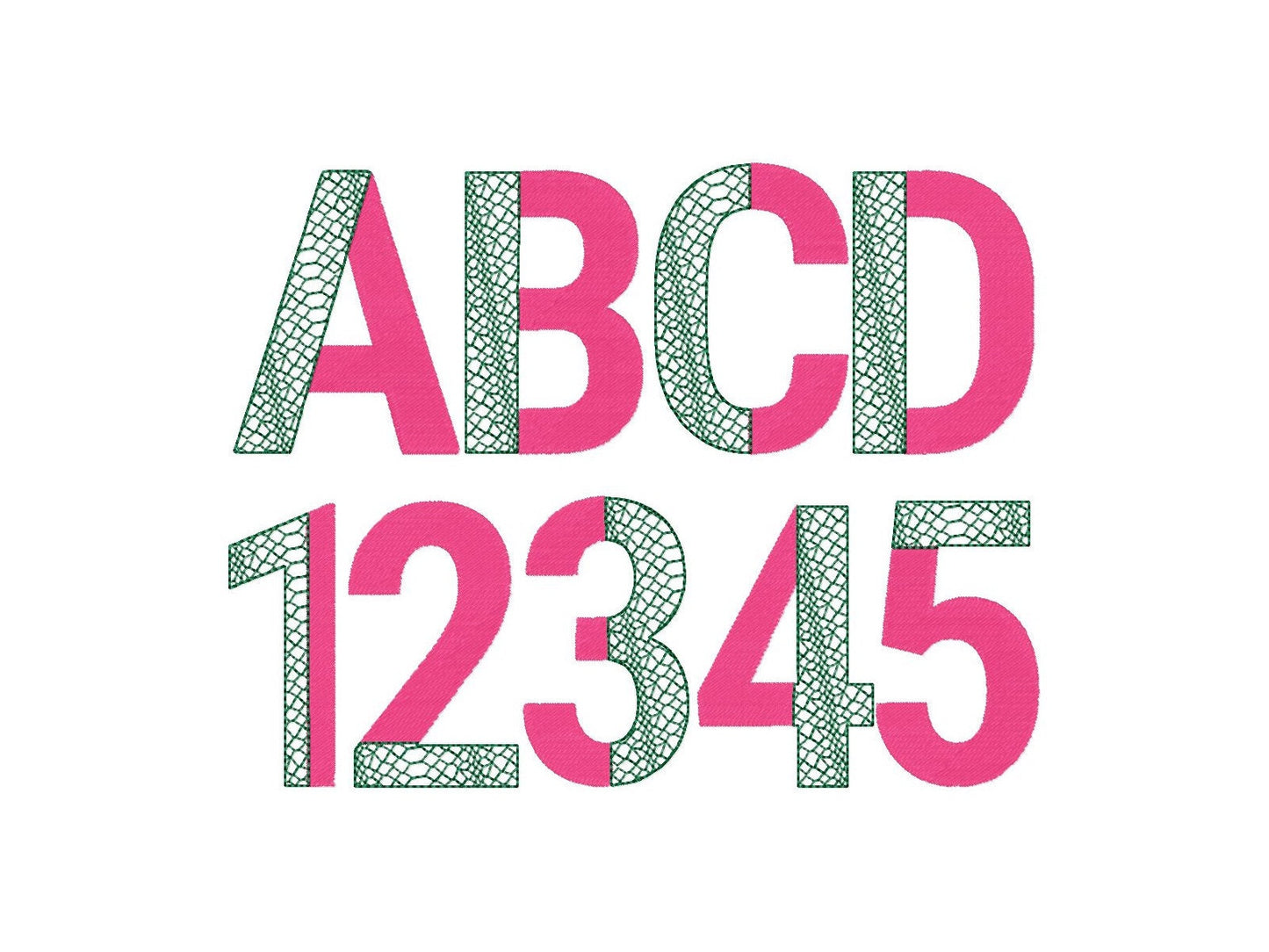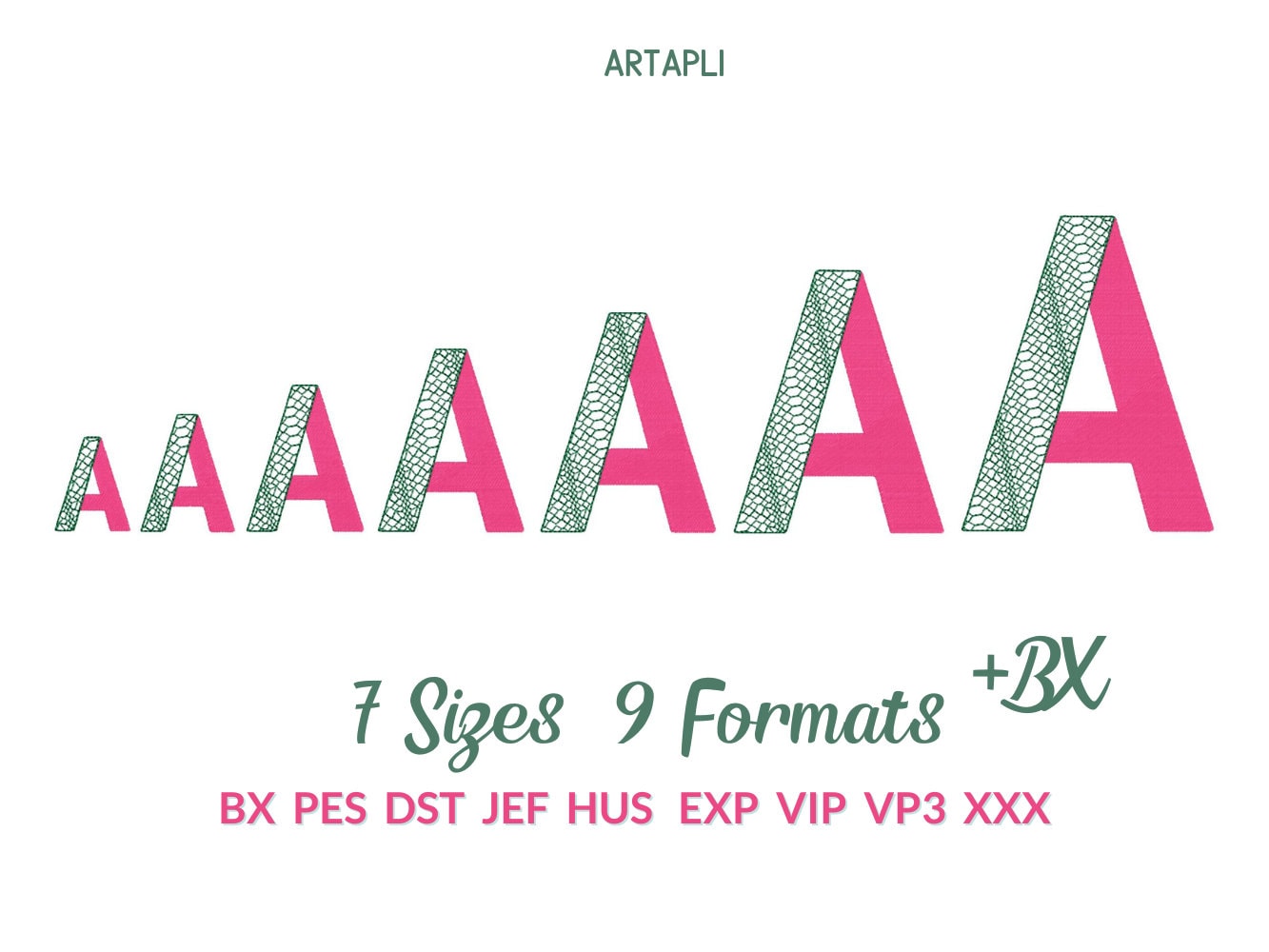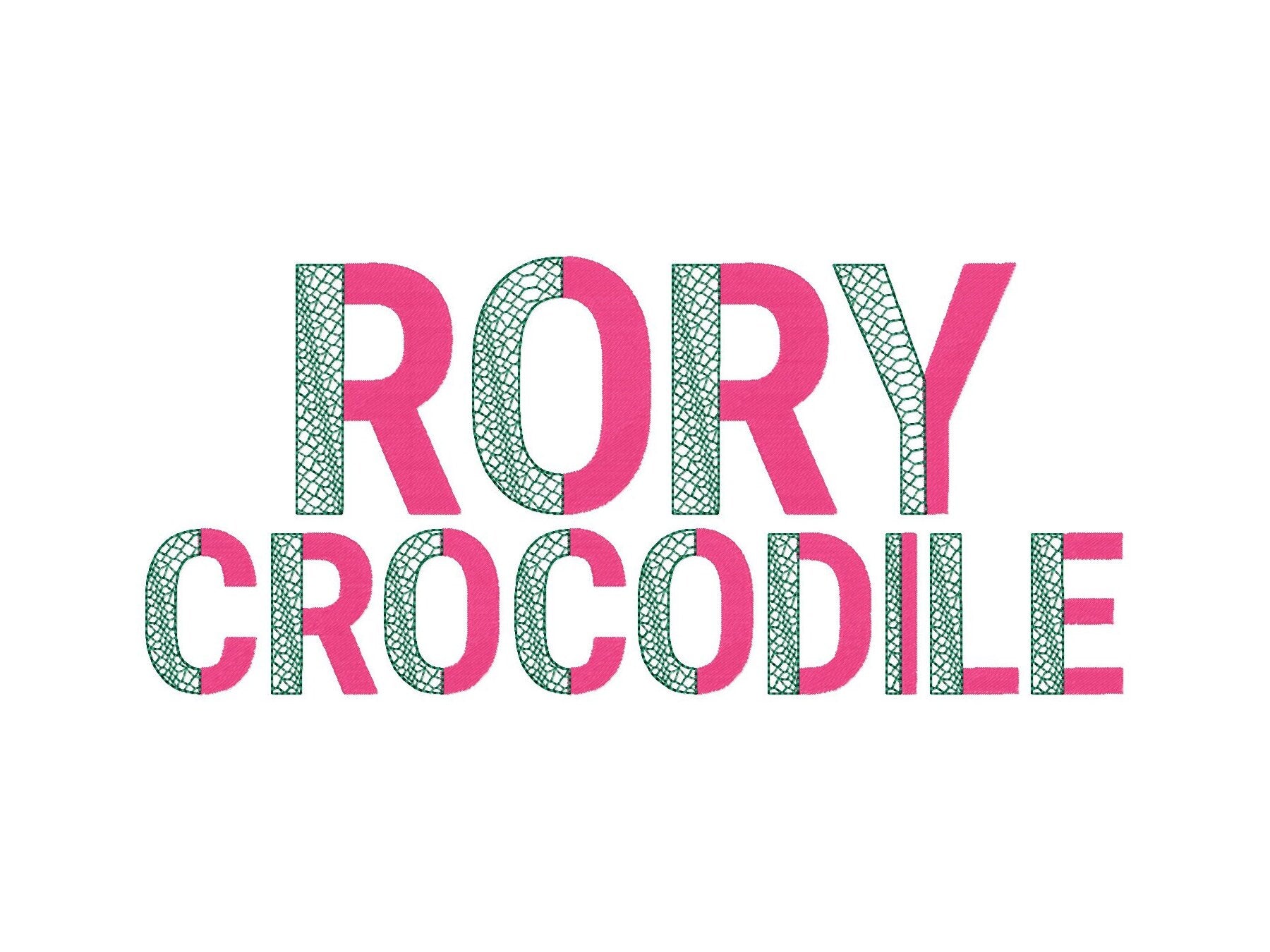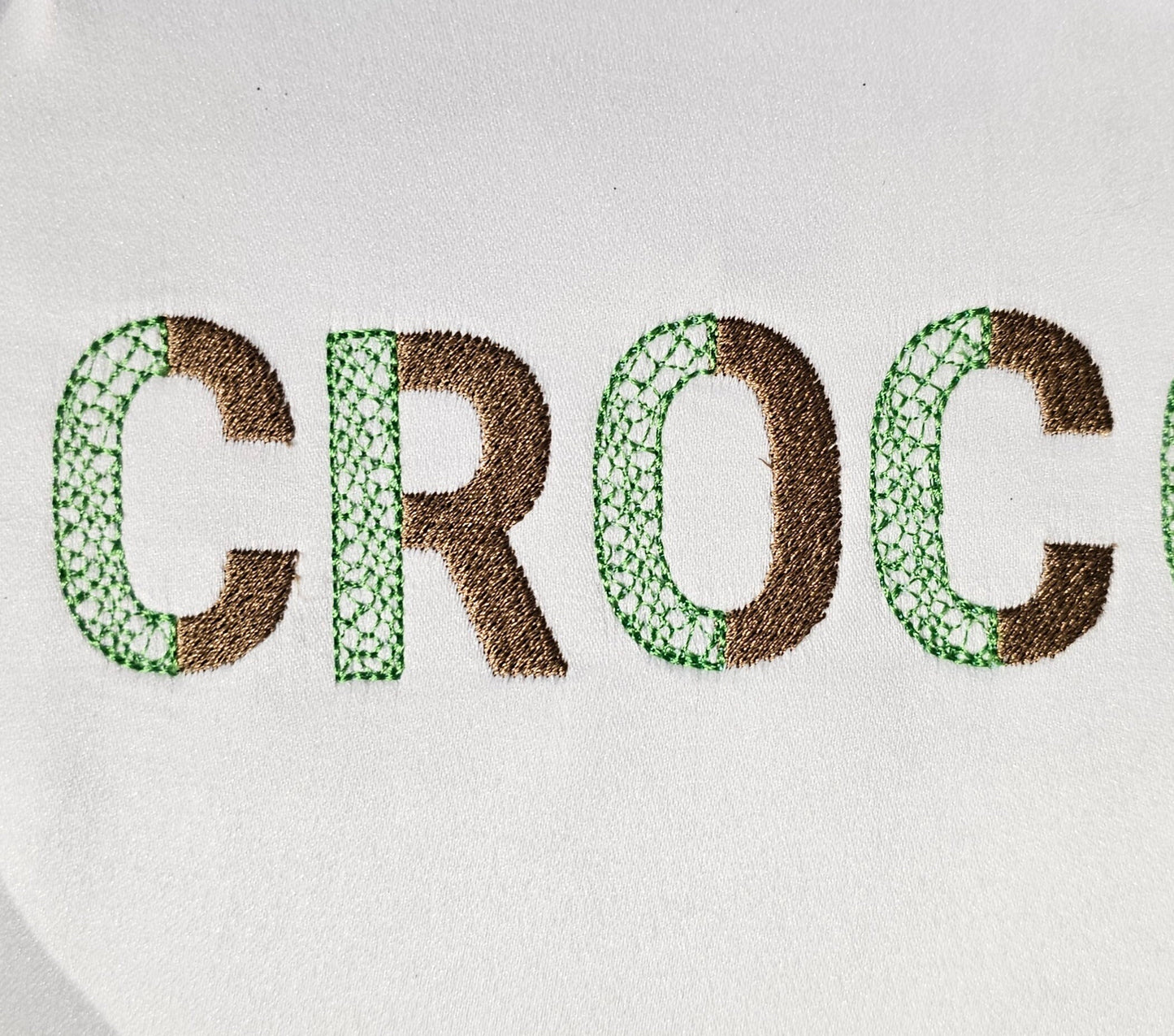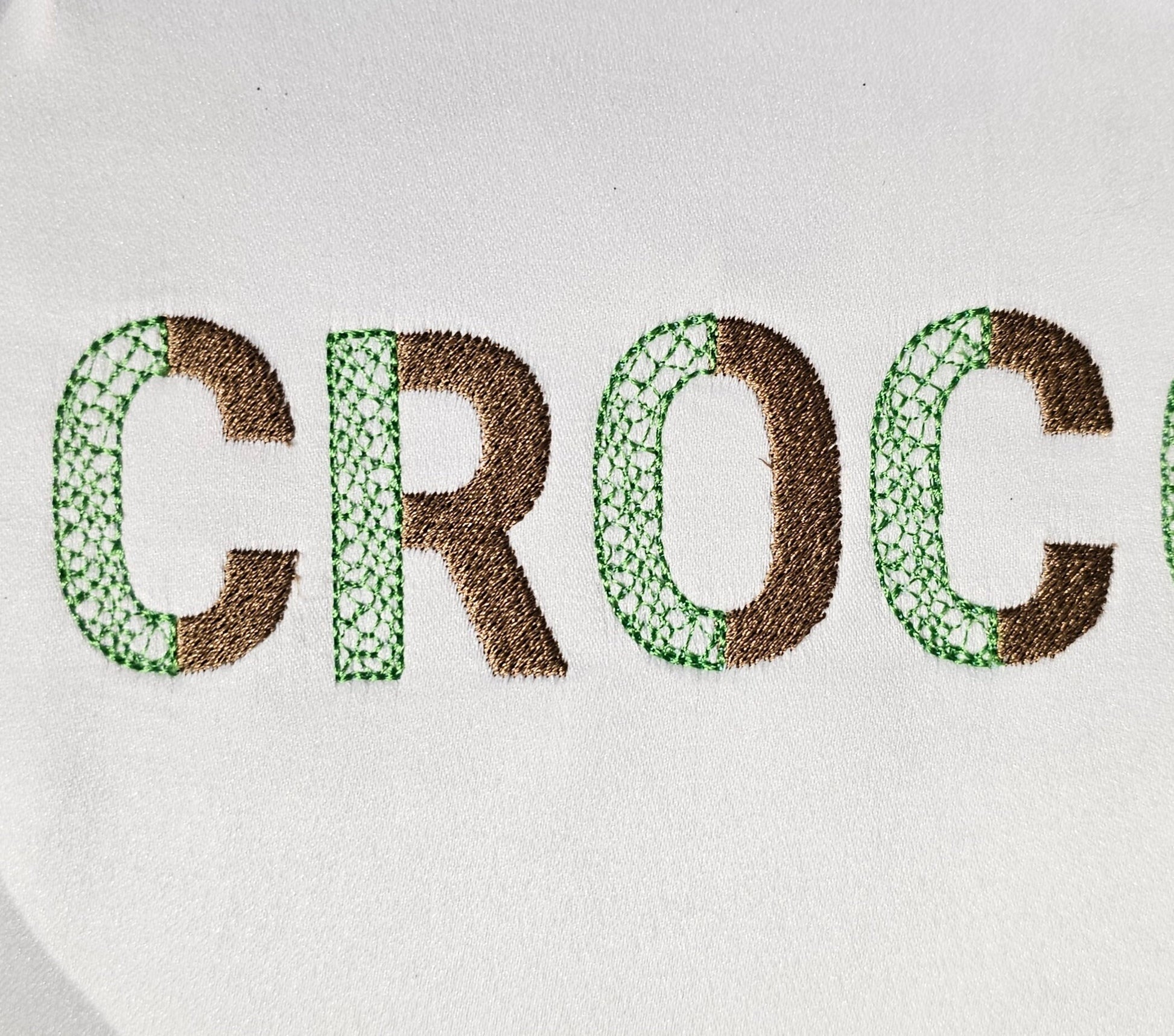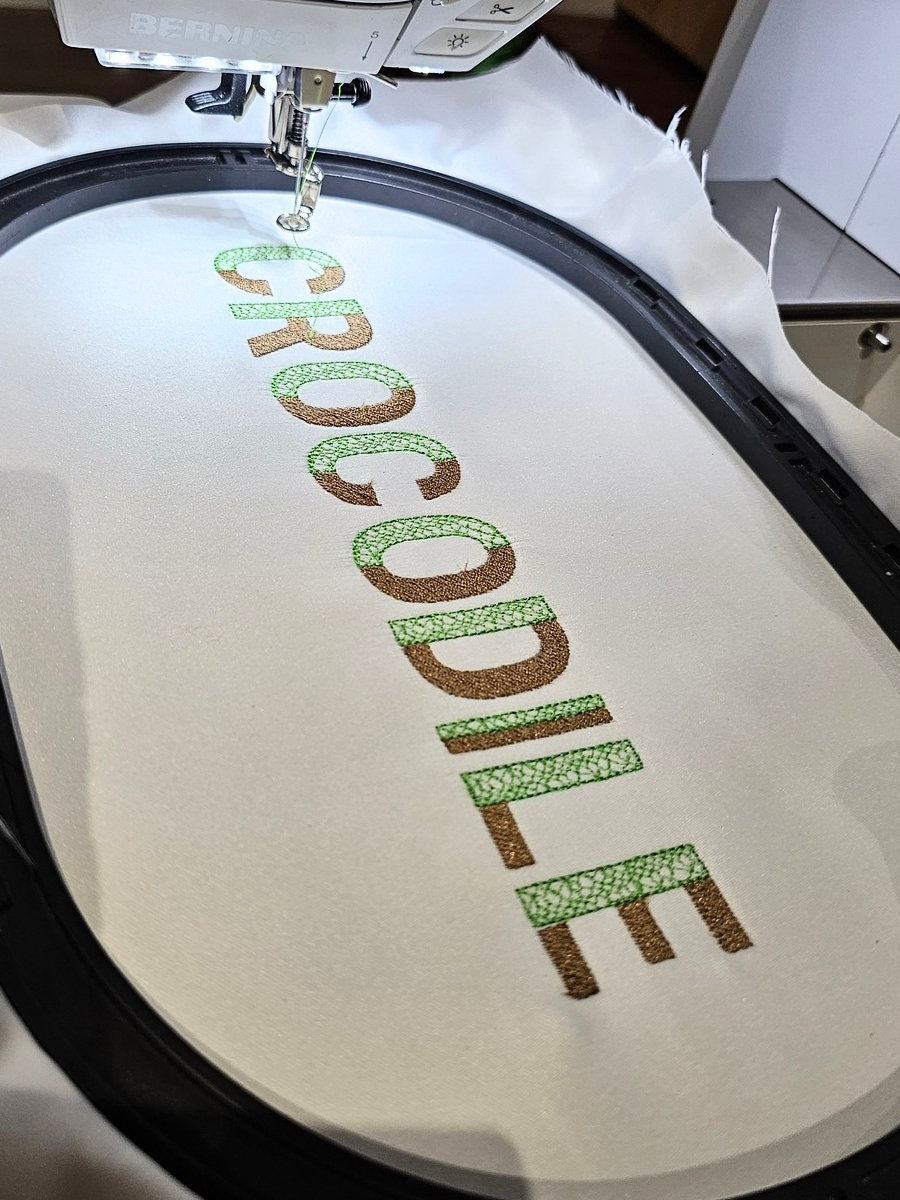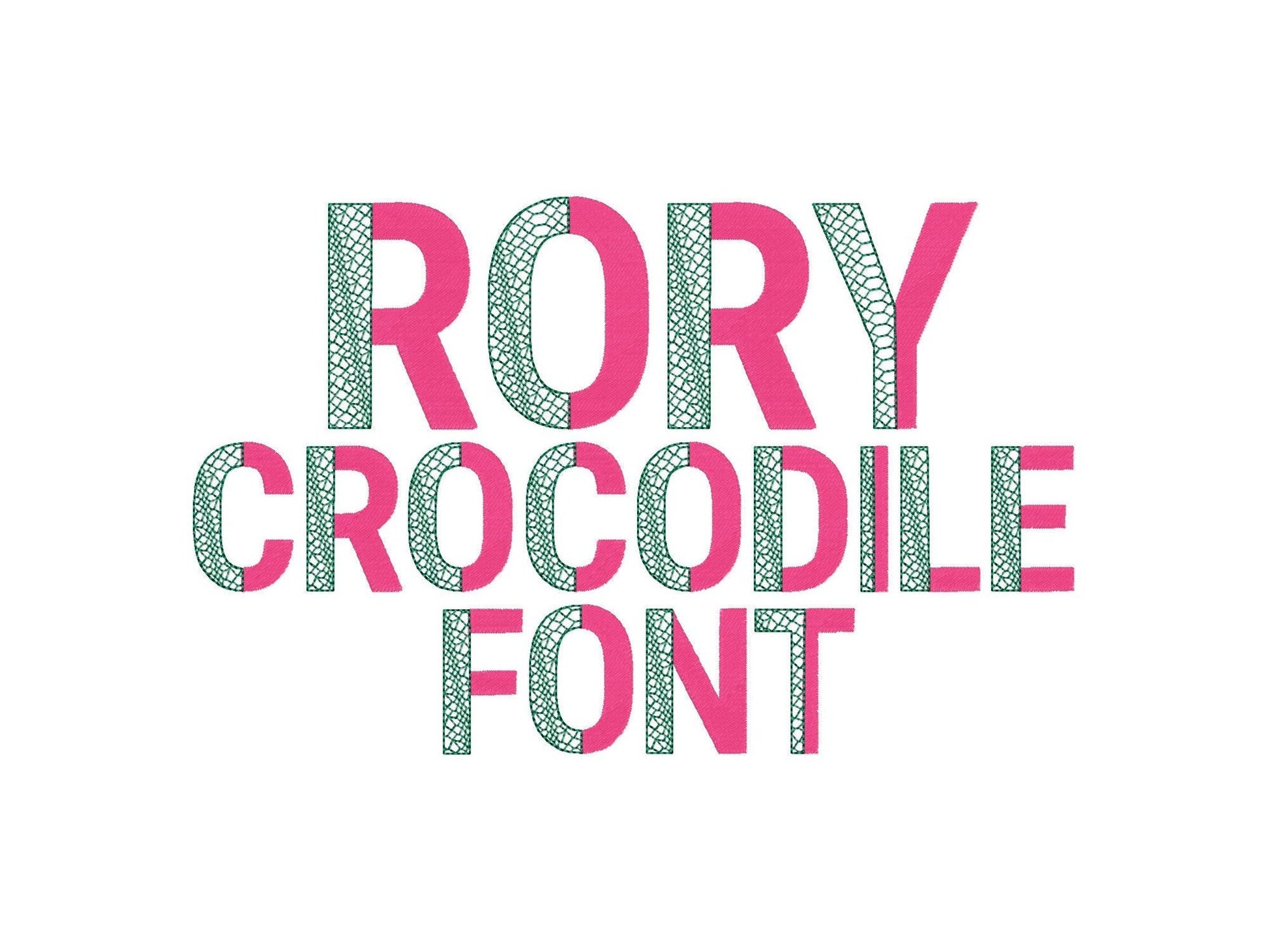
Gator Patterned Split Font
Uppercase letters A to Z, numbers and a period, in seven sizes: 1.5, 1.8, 2.3, 2.8, 3.4, 4 and 4.8 inches. The gator print is part of the stitching and lets the fabric show through.
- Gator print duotone split font
- Uppercase A-Z, numbers, period
- 7 sizes, 1.5 to 4.8 in